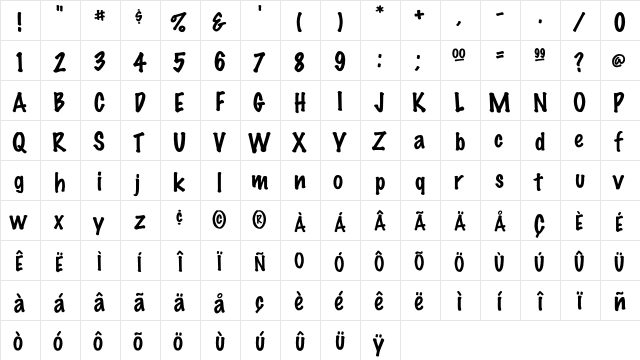
Marker FeltThin Font Preview
Marker FeltThin
Design Context for Marker Typeface
Marker is a composed and adaptable typeface that performs quietly and consistently across a wide range of design contexts. Its slender proportions lend an understated elegance to any composition.